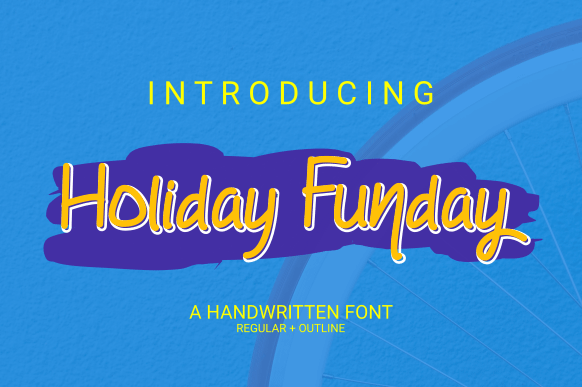
Preview and download Holiday Funday Font. Created by Irvan R in Script Handwritten styles with Free for personal use license.
Holiday Funday is a handwritten font. It�s great for branding, posters, quotes, and much more! This Demo Font for Free Personal Use link for full version and commercial licence https://www.creativefabrica.com/product/holiday-funday/ https://thehungryjpeg.com/product/3583960-holiday-funday Paypal account for donation : https://www.paypal.me/RandiIrvan If you need an extended license or corporate license, please contact me at randiirvann@gmail.com |